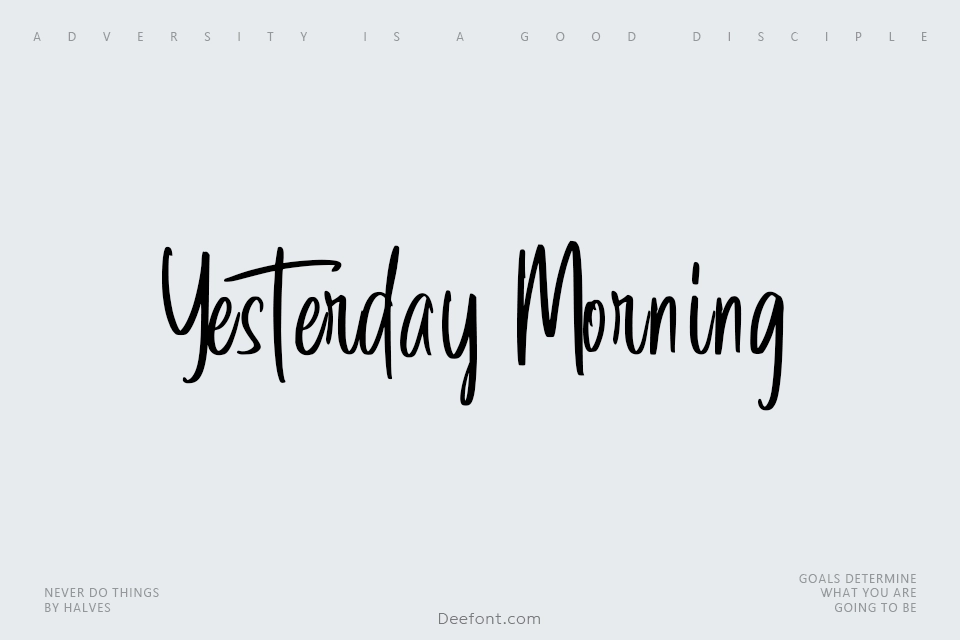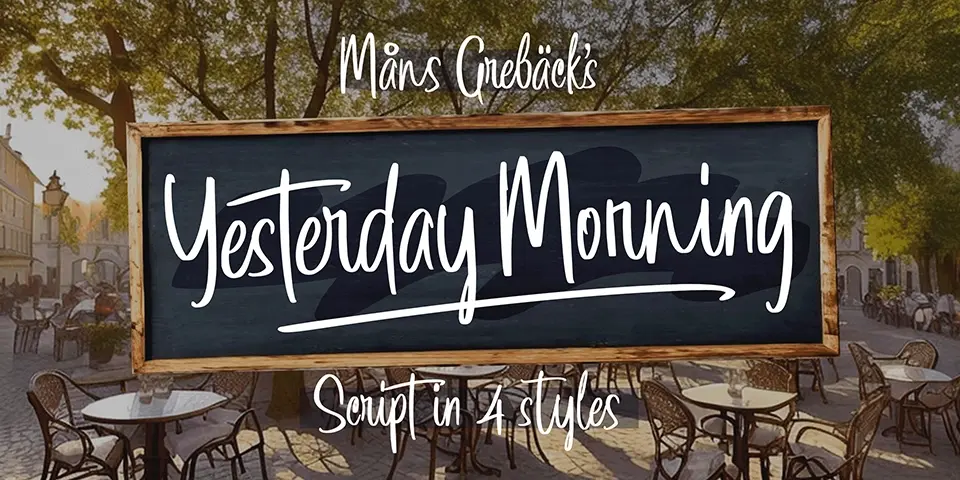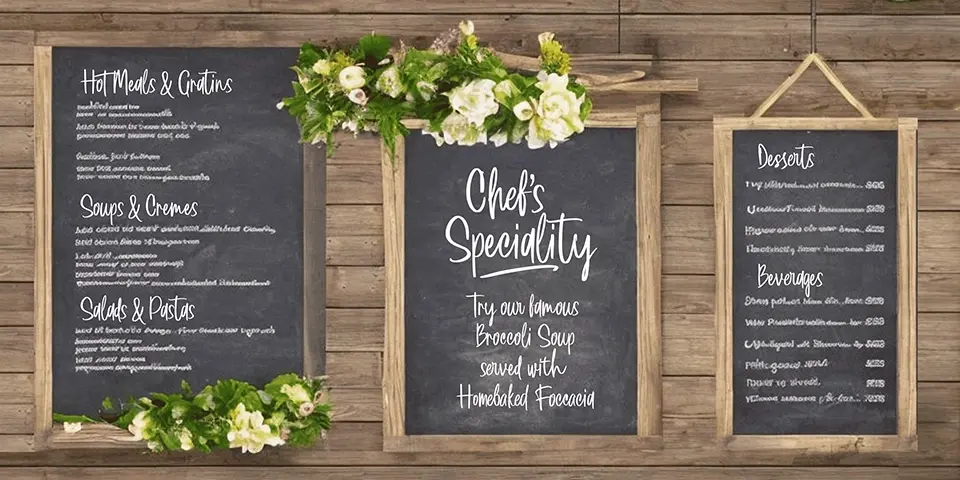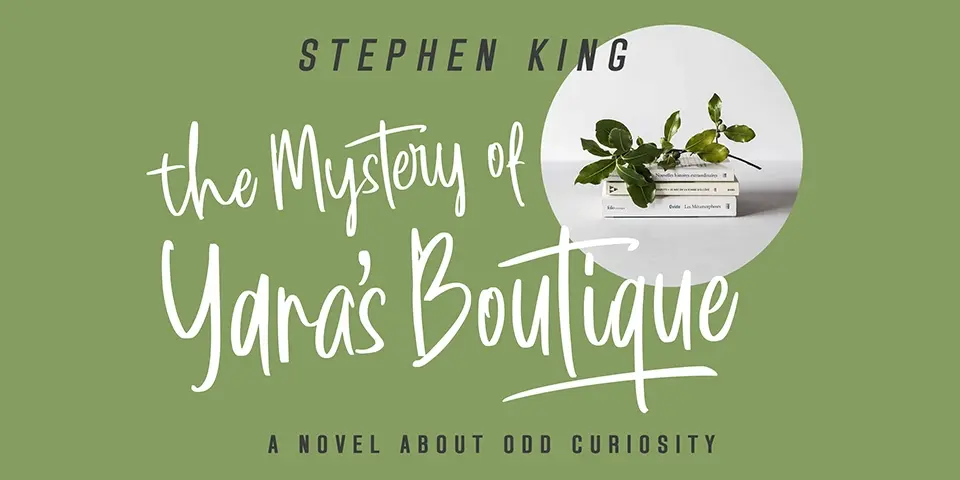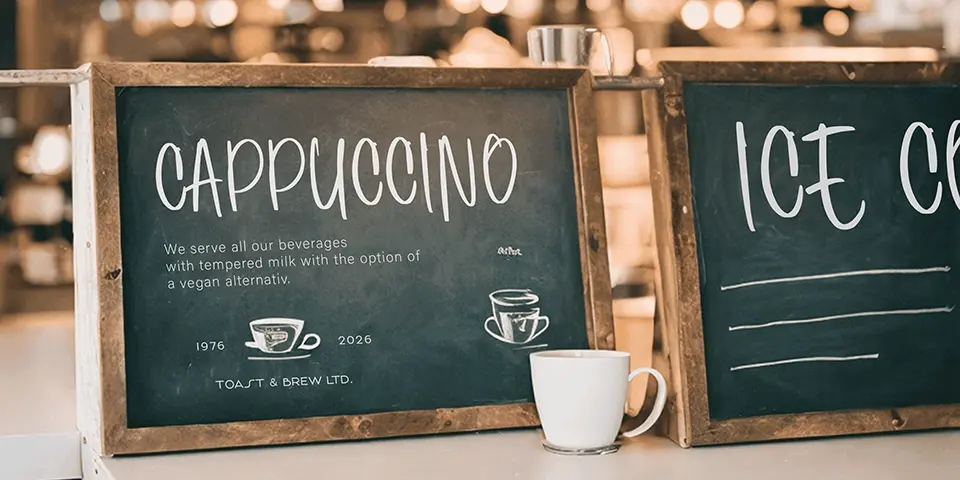
Yesterday Morning Font
Yesterday Morning is a lively handwriting font that captures the essence of an active and cute brush style. With its hand-brushed appearance and authentic touch, this script typeface brings warmth and approachability to your creative designs. The font features eight engaging styles, from balanced and calm to wild and energetic options, complete with italic and bold variations. It contains extensive character support for all Latin-based languages with advanced OpenType functionality and stylistic alternates, making it perfect for fashion projects, headlines, and advertisements that demand energy and personal expression.